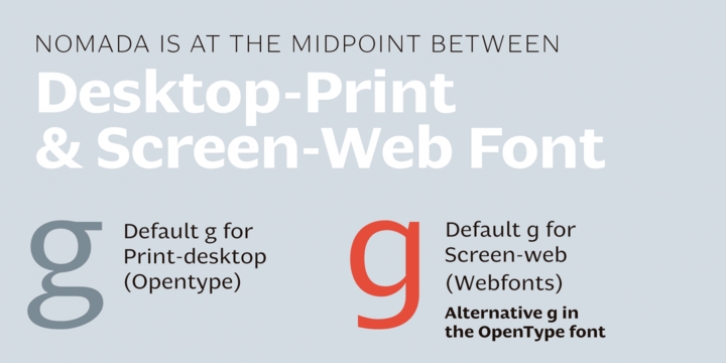
Nomada explores the concept of typefaces on the move continuously: sometimes printed, in books, catalogues, posters or packaging; at other times projected on screens of mobile and fixed devices, as text or as image.
Because of it’s nature, Nomada is a comfortable and highly legible typeface for any use, language or application.